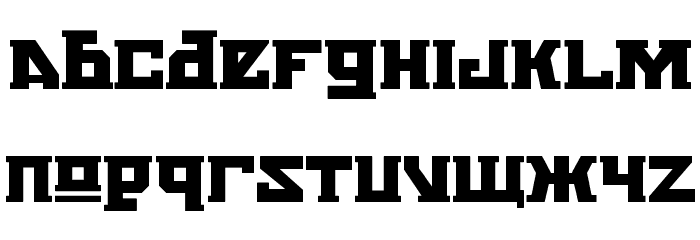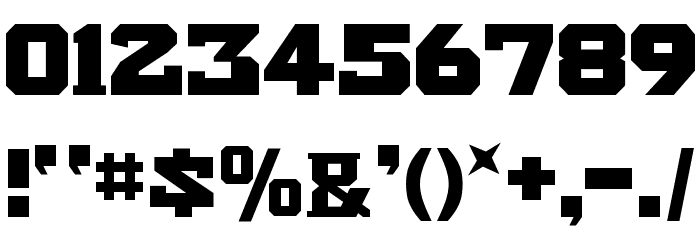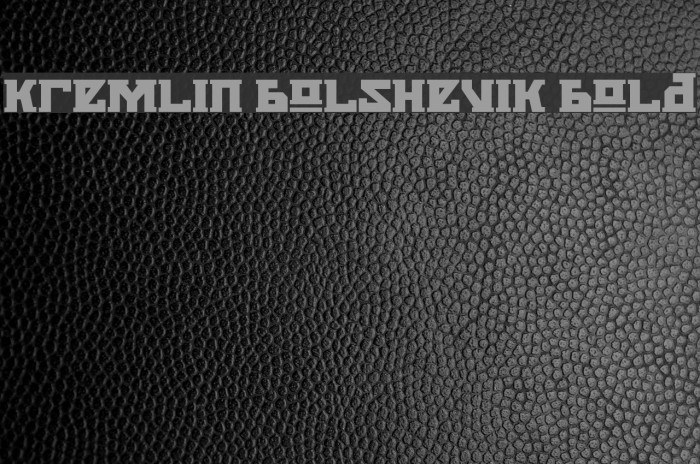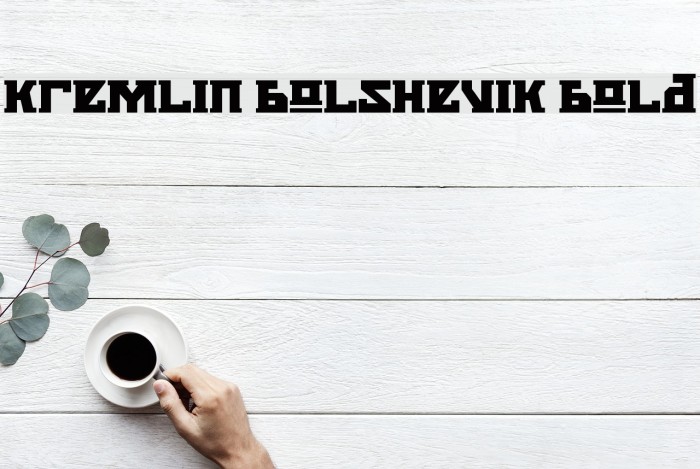
Kremlin Bolshevik Bold Font
This font features a bold, geometric style with strong, angular lines and a distinct Soviet-era aesthetic. The characters are blocky and robust, giving a sense of strength and authority. The uppercase and lowercase letters maintain a consistent width, contributing to a uniform appearance. The numbers and special characters follow the same bold and angular design, ensuring a cohesive look across all elements. This font is particularly striking due to its high contrast between the thick strokes and the sharp, angular edges, making it highly legible and impactful.
A bold, geometric font with a Soviet-era aesthetic and strong, angular lines.
- Proposed Projects: Ideal for posters, branding, and any design projects requiring a bold, authoritative presence.
- Overall Style: Vintage